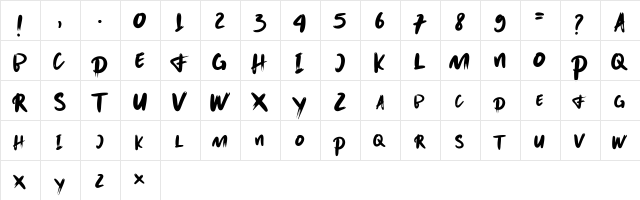
CHRISTMAS PARTY Regular
Design Context for CHRISTMAS PARTY Typeface
CHRISTMAS PARTY is a composed and adaptable typeface that performs quietly and consistently across a wide range of design contexts.